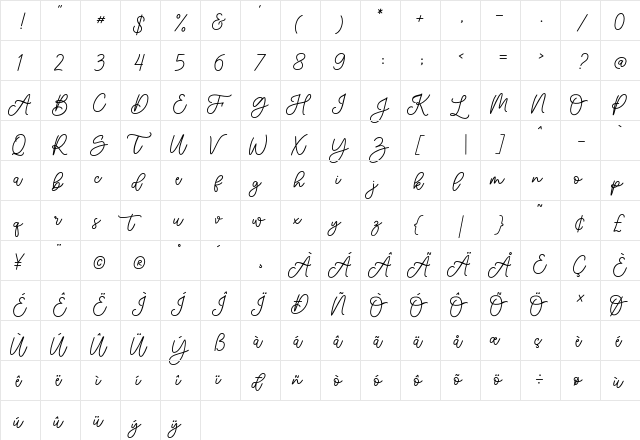
Empathy Regular
Design Context for Empathy Typeface
Empathy is a composed and adaptable typeface that performs quietly and consistently across a wide range of design contexts.